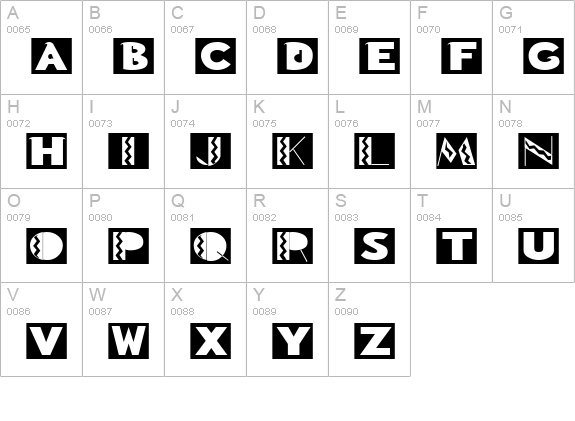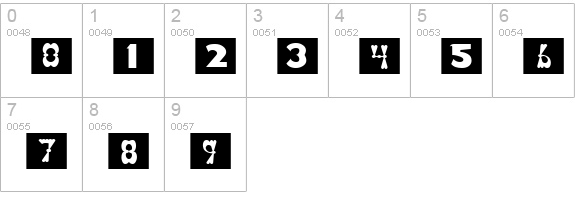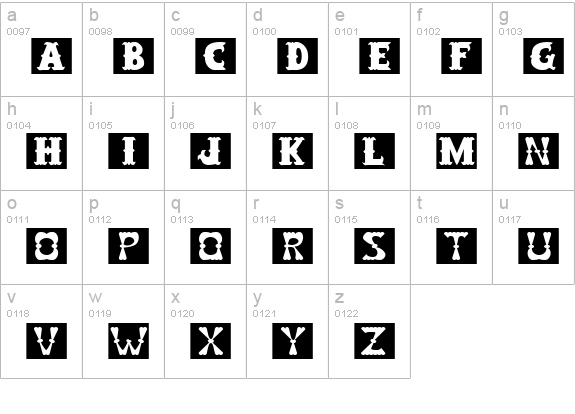
Casino Font Details
Introducing Casino font, a sleek and stylish typeface that exudes sophistication and elegance. With its sharp lines and bold design, Casino font is perfect for adding a touch of luxury to any project. Whether you're creating a high-end invitation, designing a classy logo, or crafting a premium brand identity, Casino font is sure to make a statement. The best part? Casino font is completely free to download at FontsMarket.com. That's right, you can elevate your designs with this premium font without breaking the bank. So why wait? Download Casino font today and take your projects to the next level with its timeless charm and effortless style.